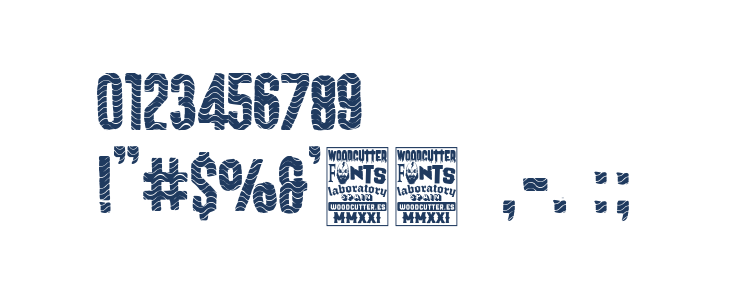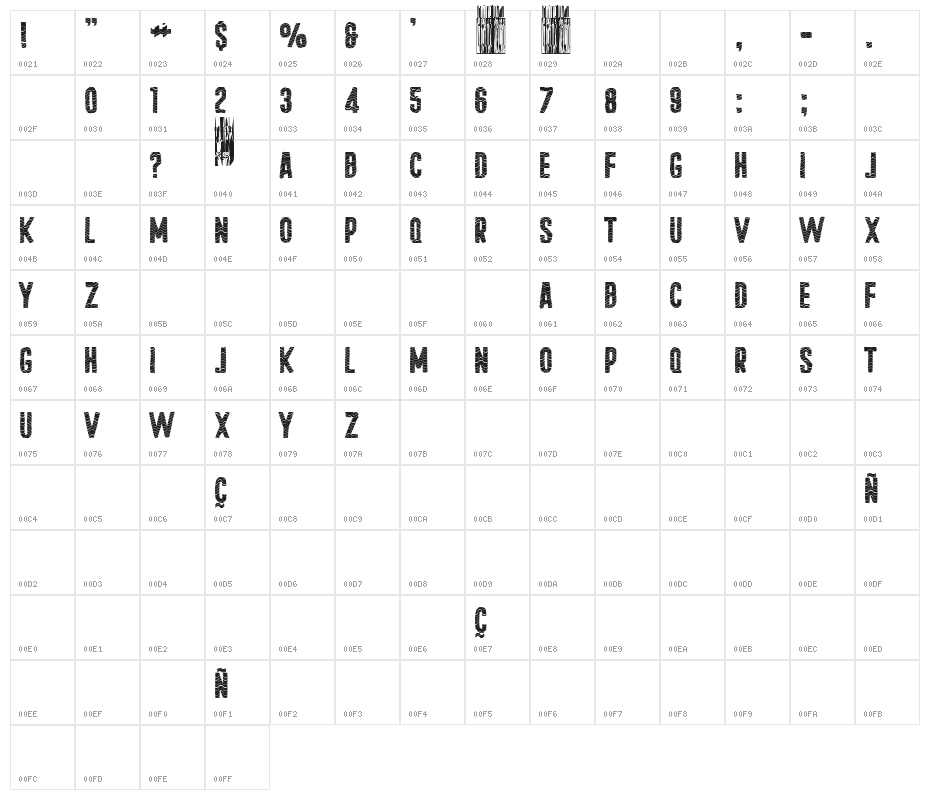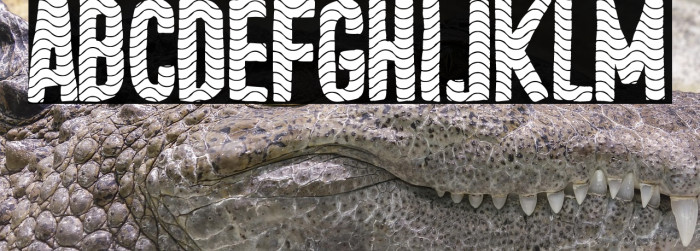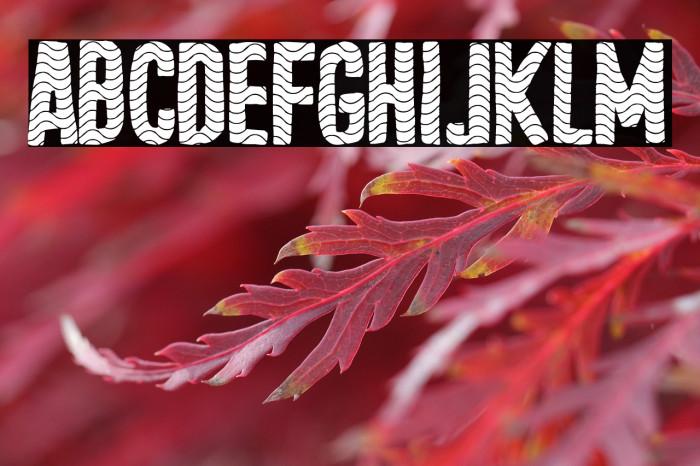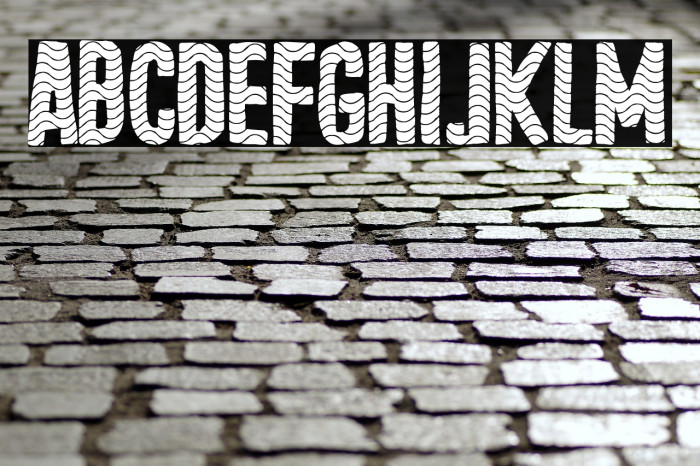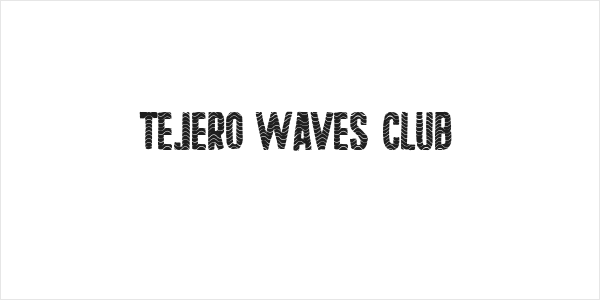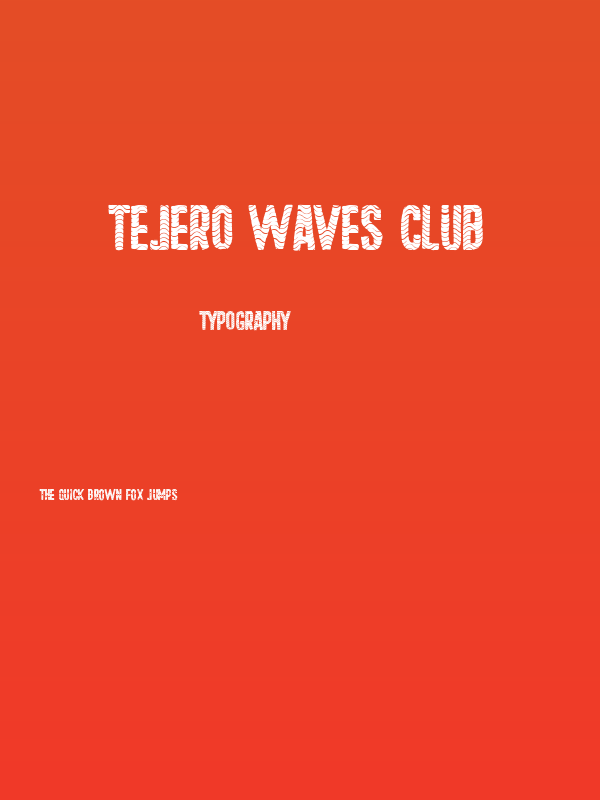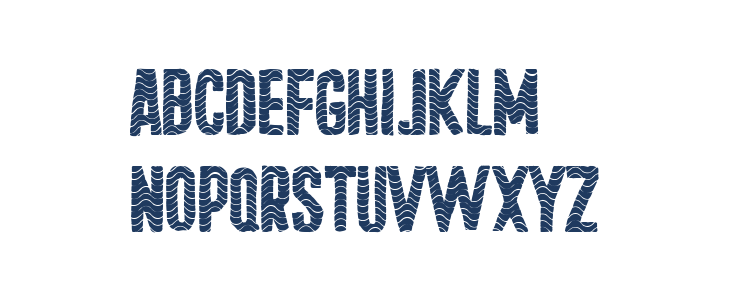
Tejero Waves Club Font
Tejero Waves Club Description
This font features a bold and striking design with a unique wave pattern running through each character, creating a sense of movement and fluidity. The uppercase and lowercase letters maintain a consistent style, with clean lines and a modern aesthetic. The numbers and special characters are equally bold, ensuring readability while maintaining the decorative wave motif. This font is perfect for projects that require a dynamic and eye-catching display, combining both artistic flair and legibility.
Overall StyleModern, Decorative
Proposed ProjectsIdeal for branding, posters, album covers, and any project needing a bold, artistic touch.